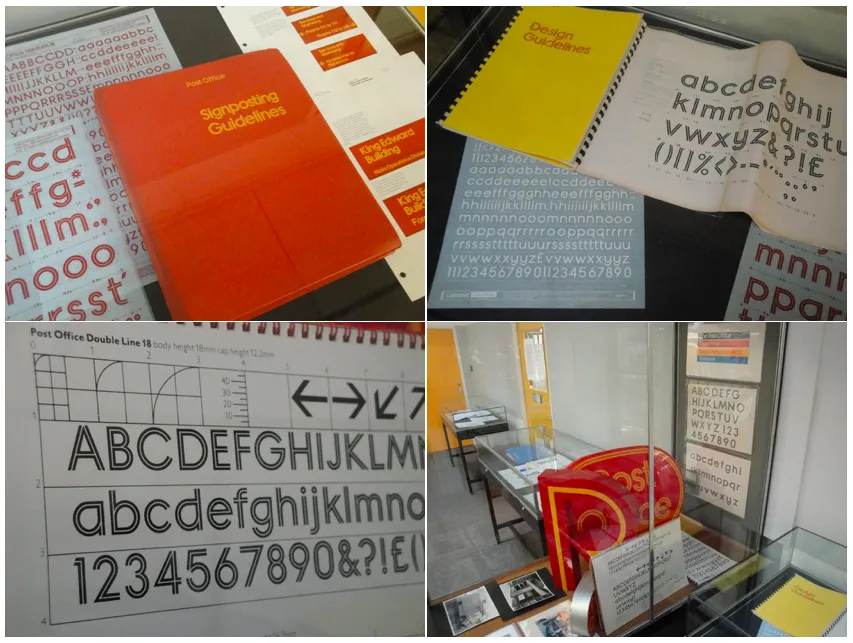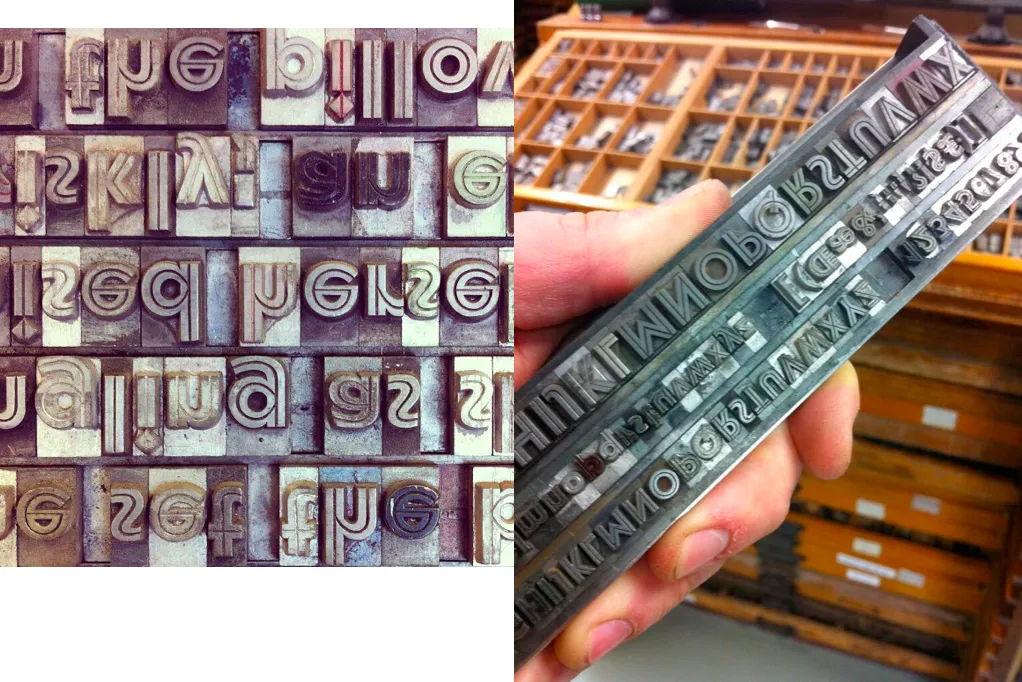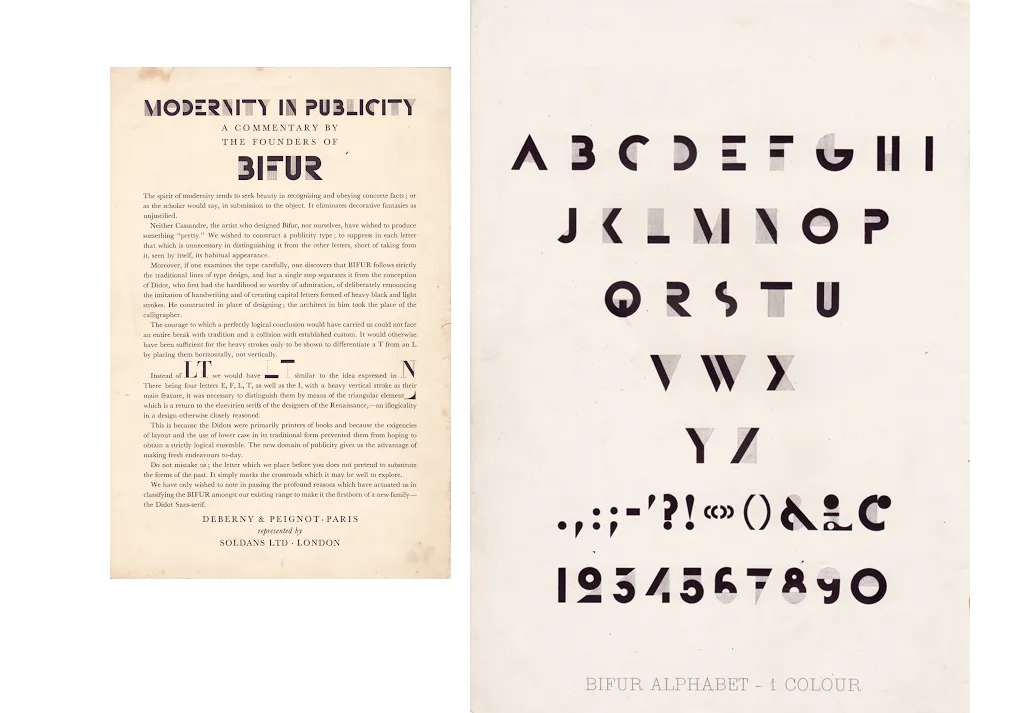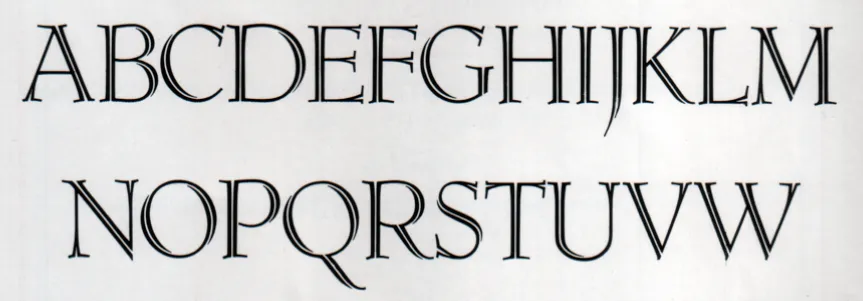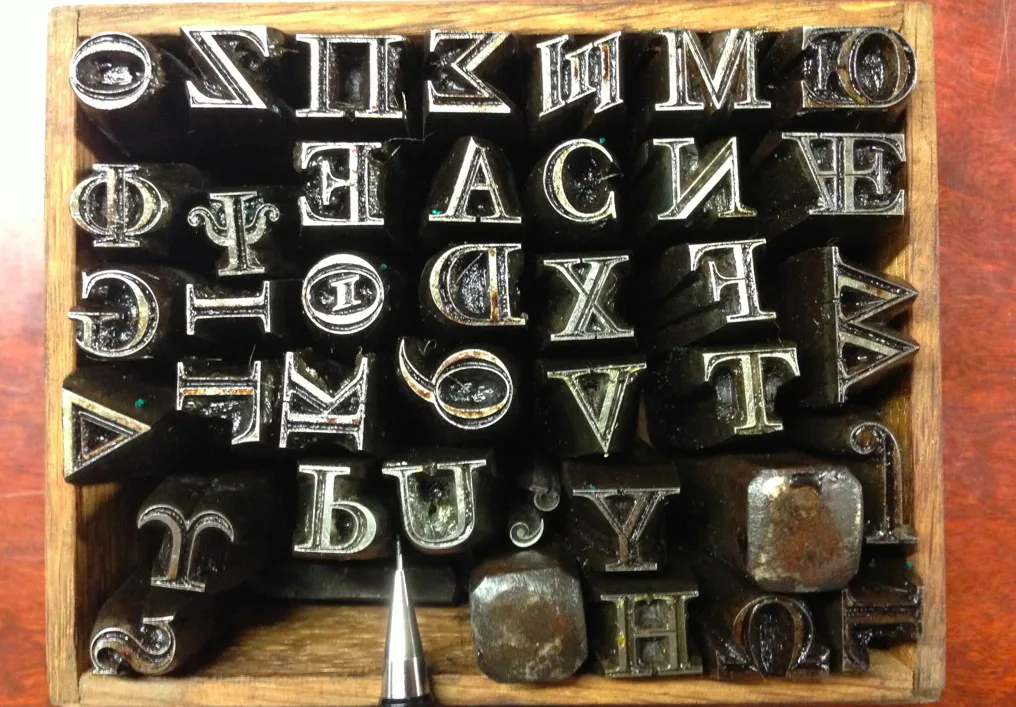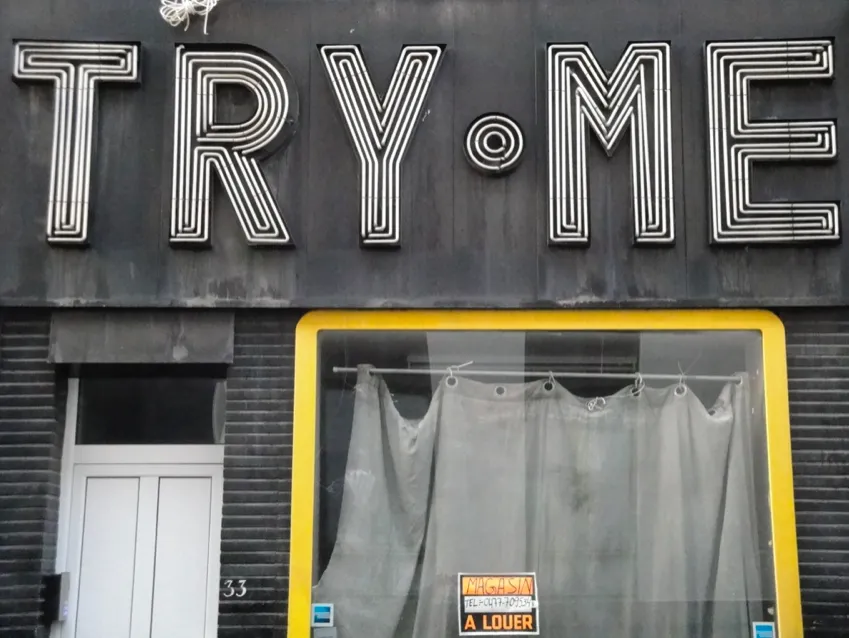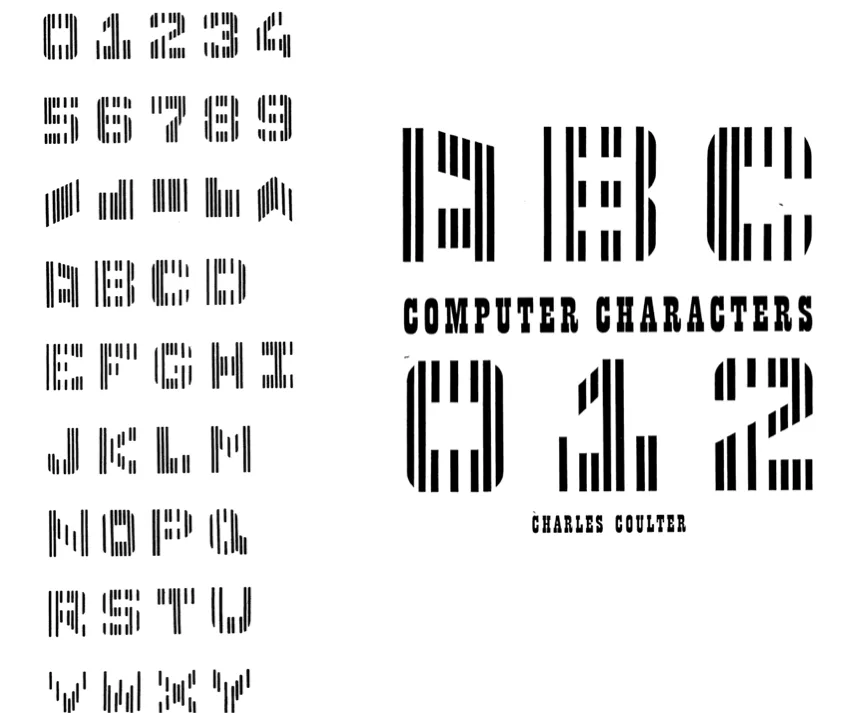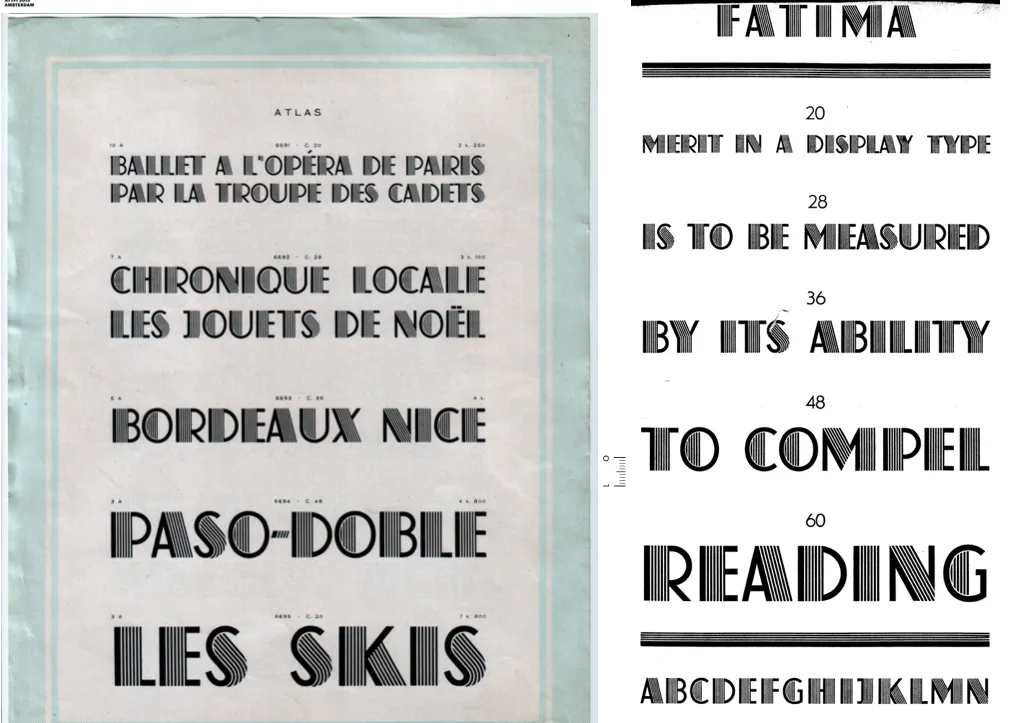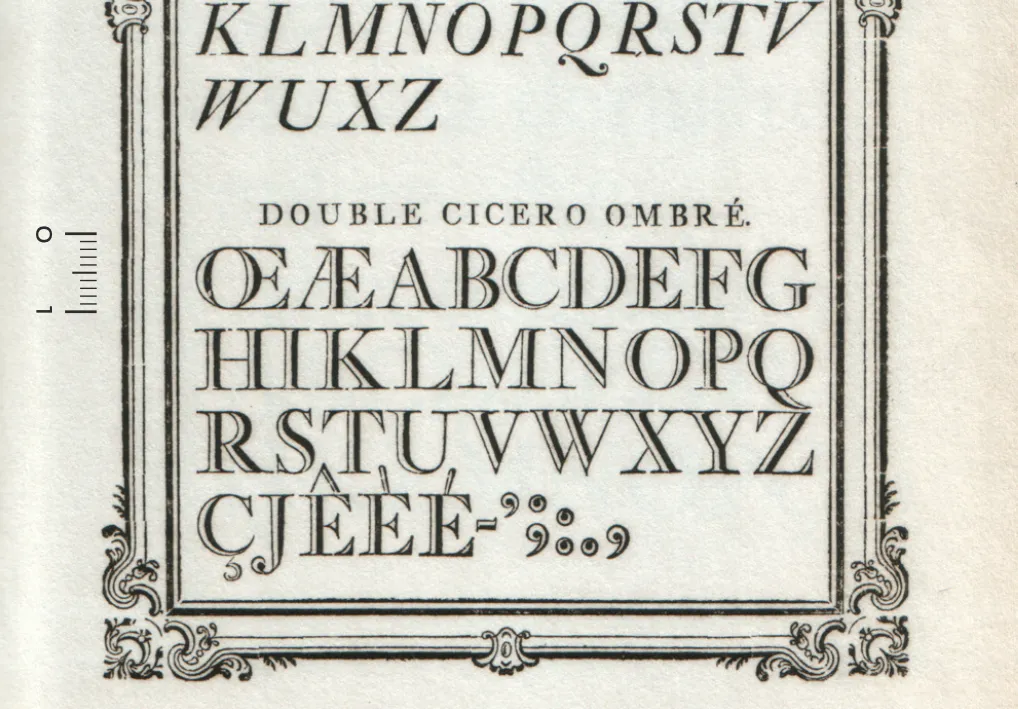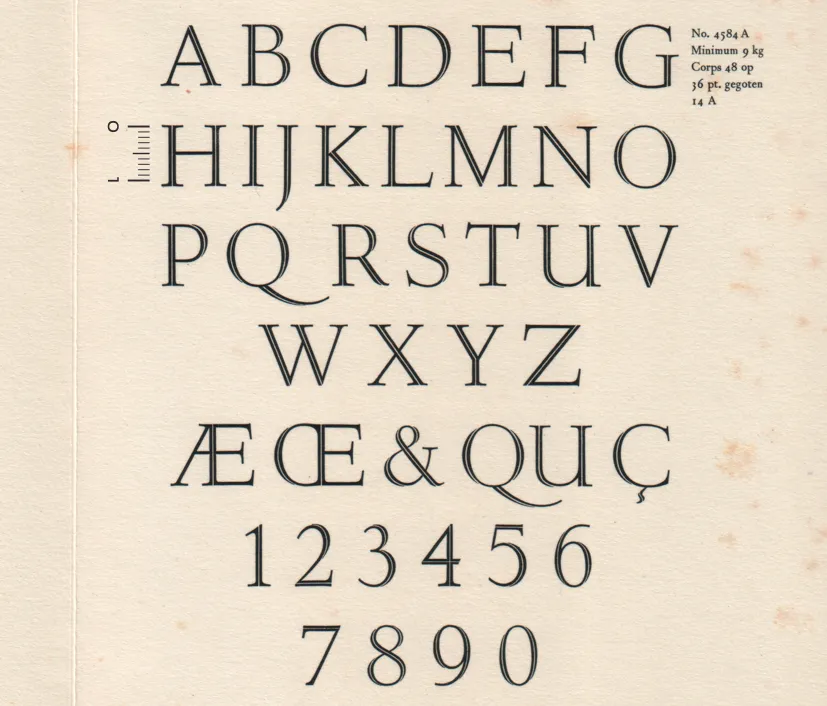
Inline vs Outline: on the origin, evolution and contemporary practices of inline typefaces
Inline vs Outline investigates the roots of manufacturing inline typefaces and illustrates the reasoning of their development through the typographic analysis of ornamented types.
In addition to analyzing historical typefaces and its creators (wherefore unique material was gathered at different collections, printing archives and type foundries), this study also focuses on the specific use of these inline typefaces in signage lettering, advertising, packaging and editorial design of the twentieth century.
The research concludes with highlighting contemporary practices of designing and developing digital inline fonts.